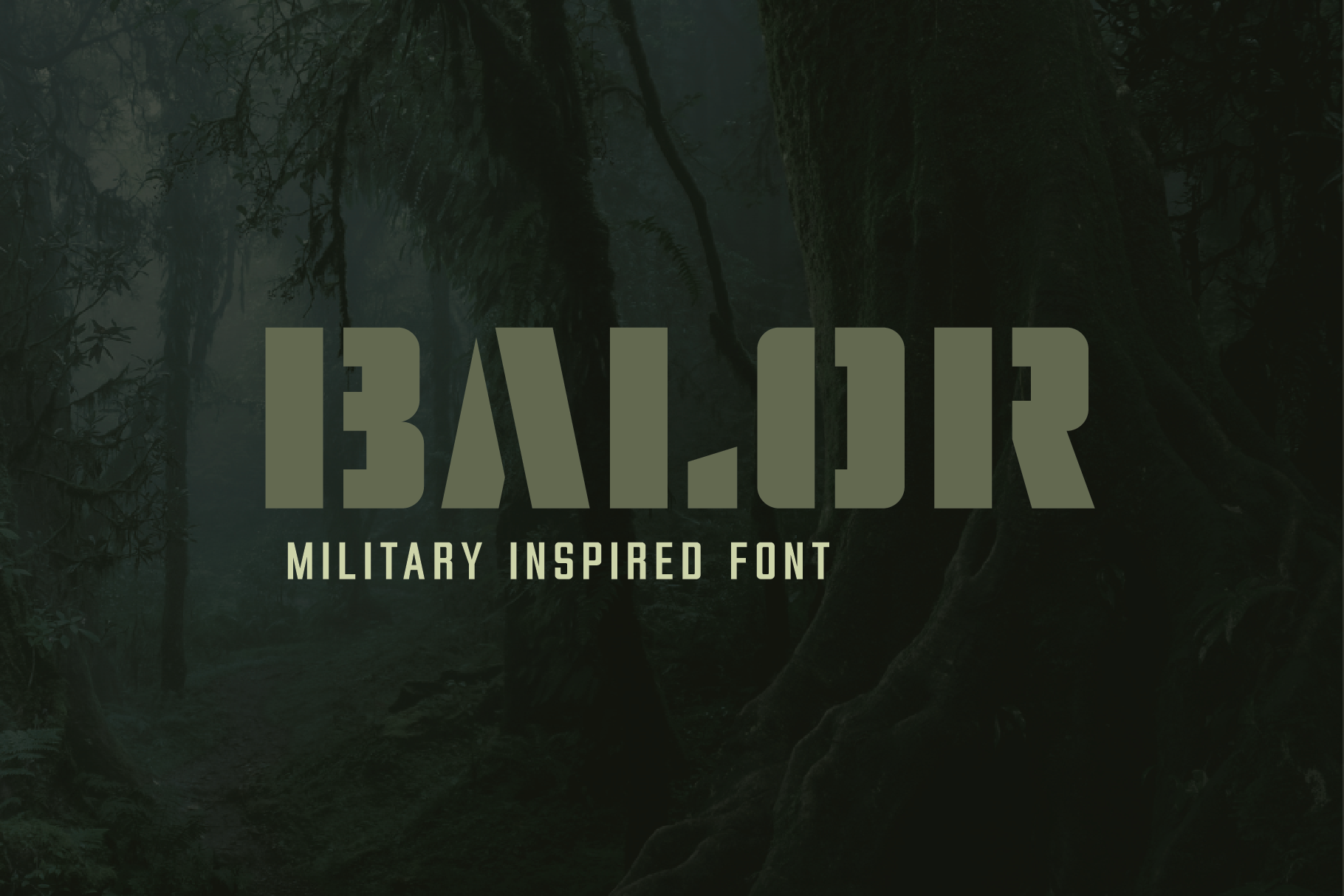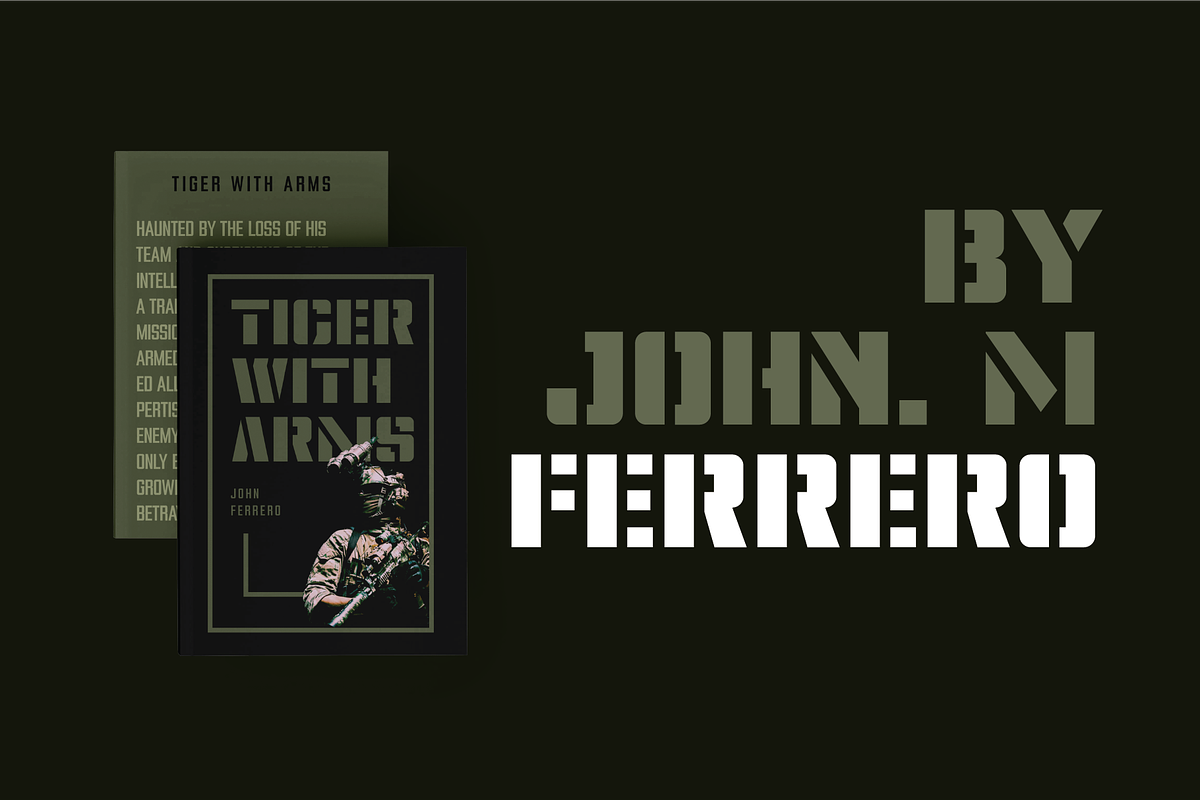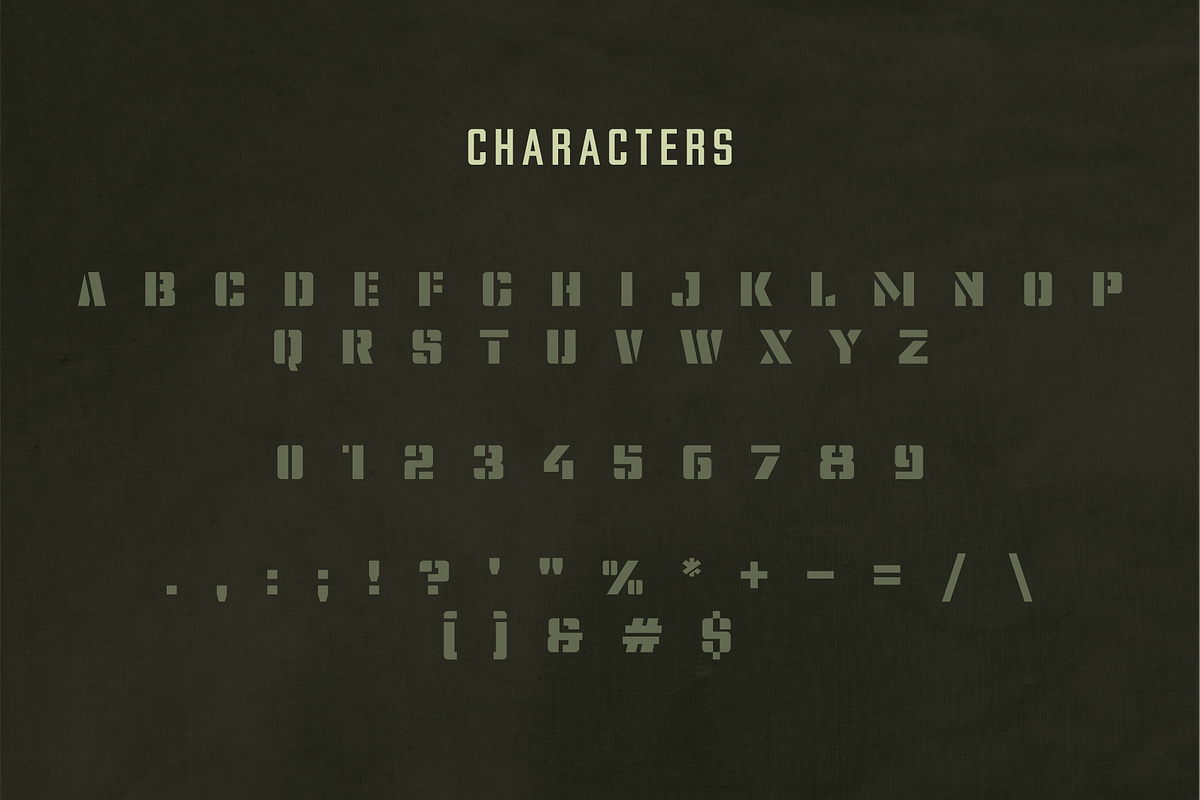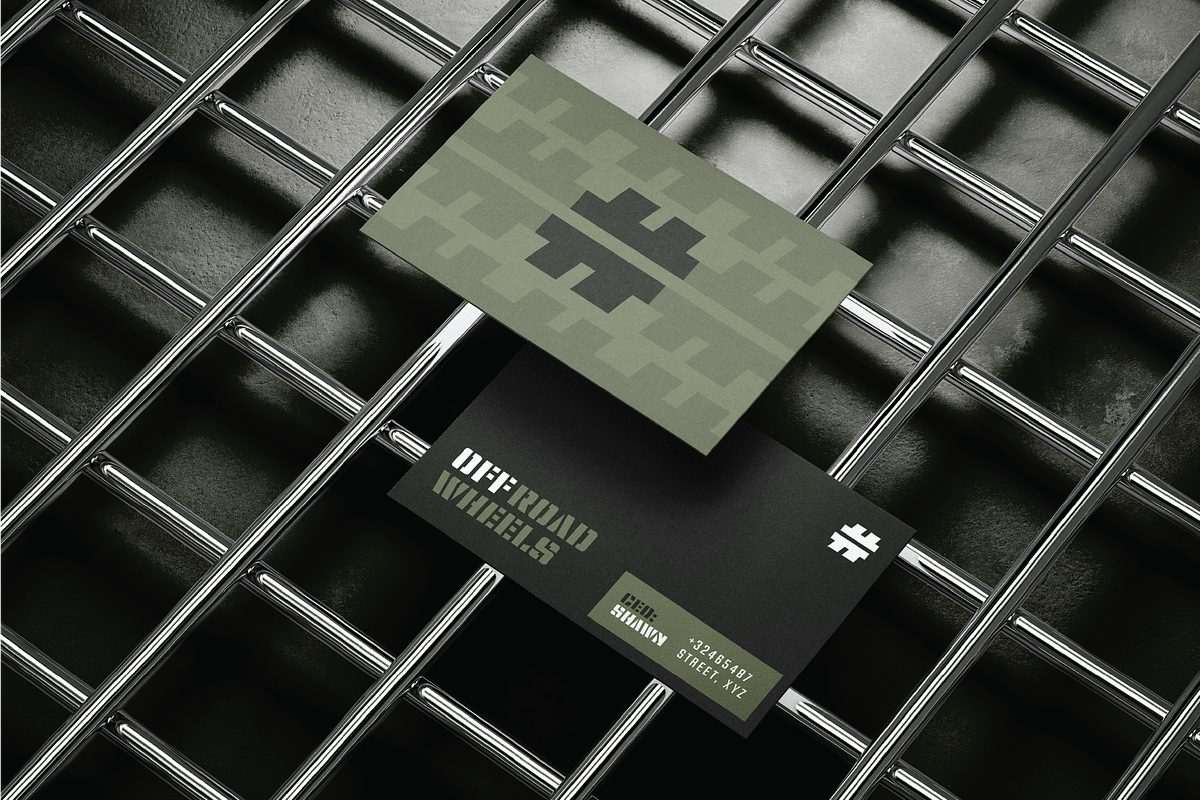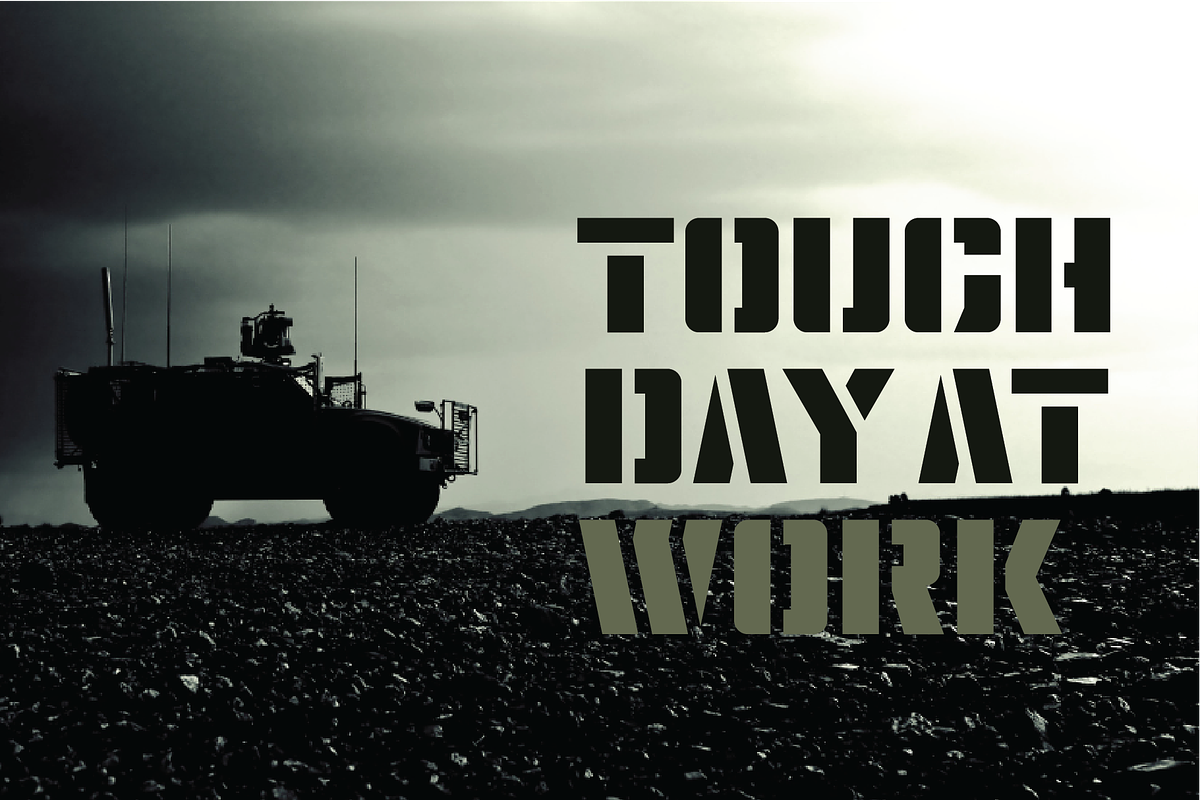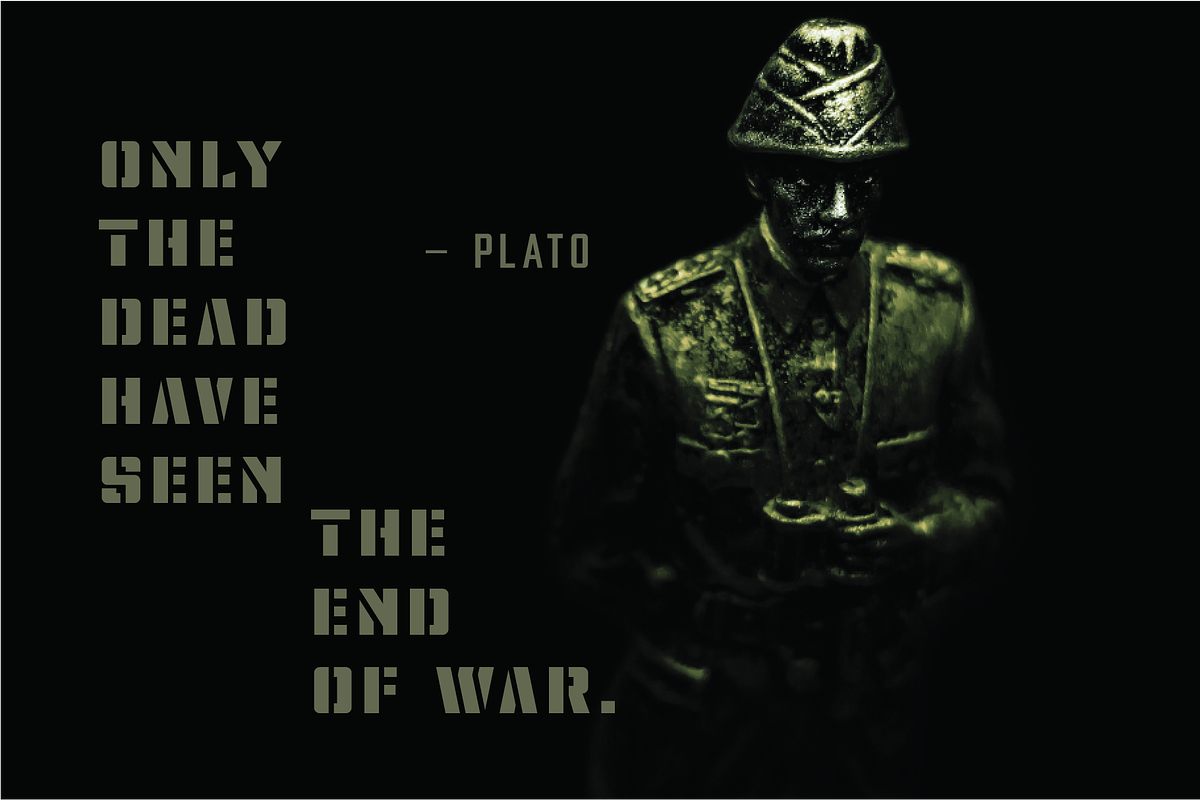
Balor Military Inspired Stencil Font
Balor is a military-inspired stencil font with a strong, industrial style that embodies a rugged, masculine aesthetic. Defined by its distinct stencil cuts, this bold typeface adds a tough, commanding presence to any design. It's the perfect choice for posters, labels, signage, and other creative projects that call for a military or industrial edge.